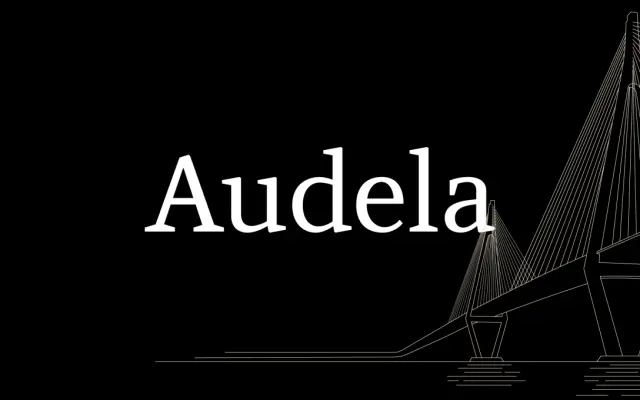
Audela
Fontfabric · Léa Bruneau, Plamen Motev · 2022
A sharp-serifed Antiqua family begun as an intern project in 2018 and released in 2022 across seven weights with matching italics and variable fonts.
Designed by Léa Bruneau under the mentorship of Fontfabric type director Plamen Motev, Audela takes its name from the French au-delà and aims to push past conventional serif conventions with wedge-shaped serifs and flowing, medium-contrast letterforms. The family spans seven weights from Extralight to Black, each with an italic, plus separate variable Roman and variable Italic fonts. Extended Latin and Cyrillic coverage alongside a full OpenType feature set makes it serviceable for editorial, branding and book cover work across multiple markets.
The foundry describes Audela as an Antiqua-rooted serif with sharp, wedge-shaped serifs and medium contrast letterforms that bridge traditional Antiqua elegance with contemporary precision, placing it squarely in the transitional serif tradition.